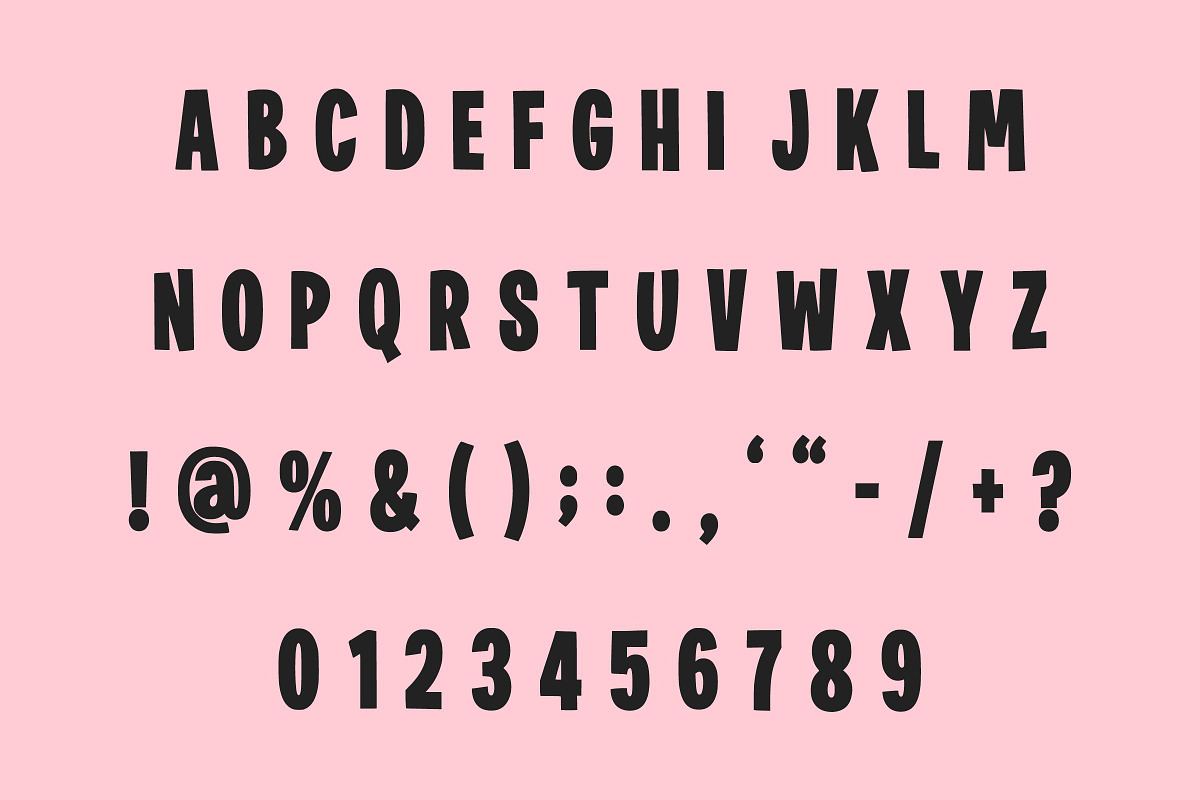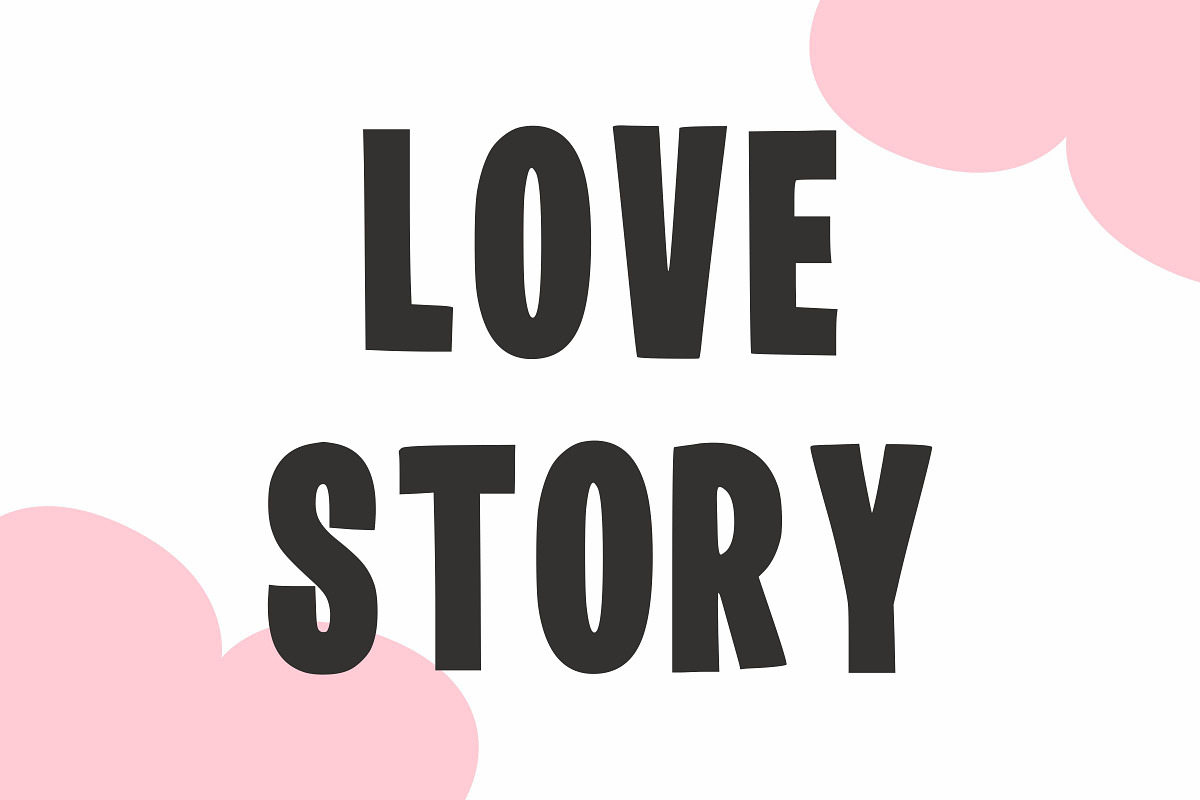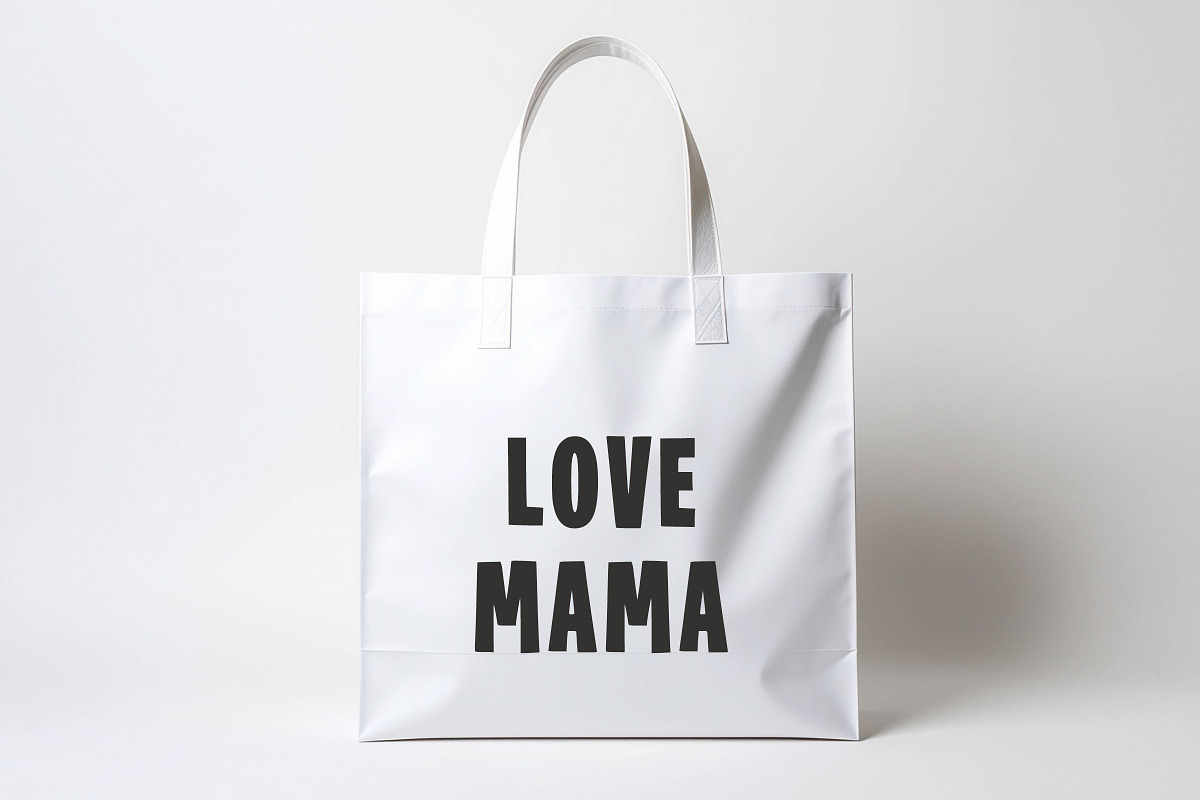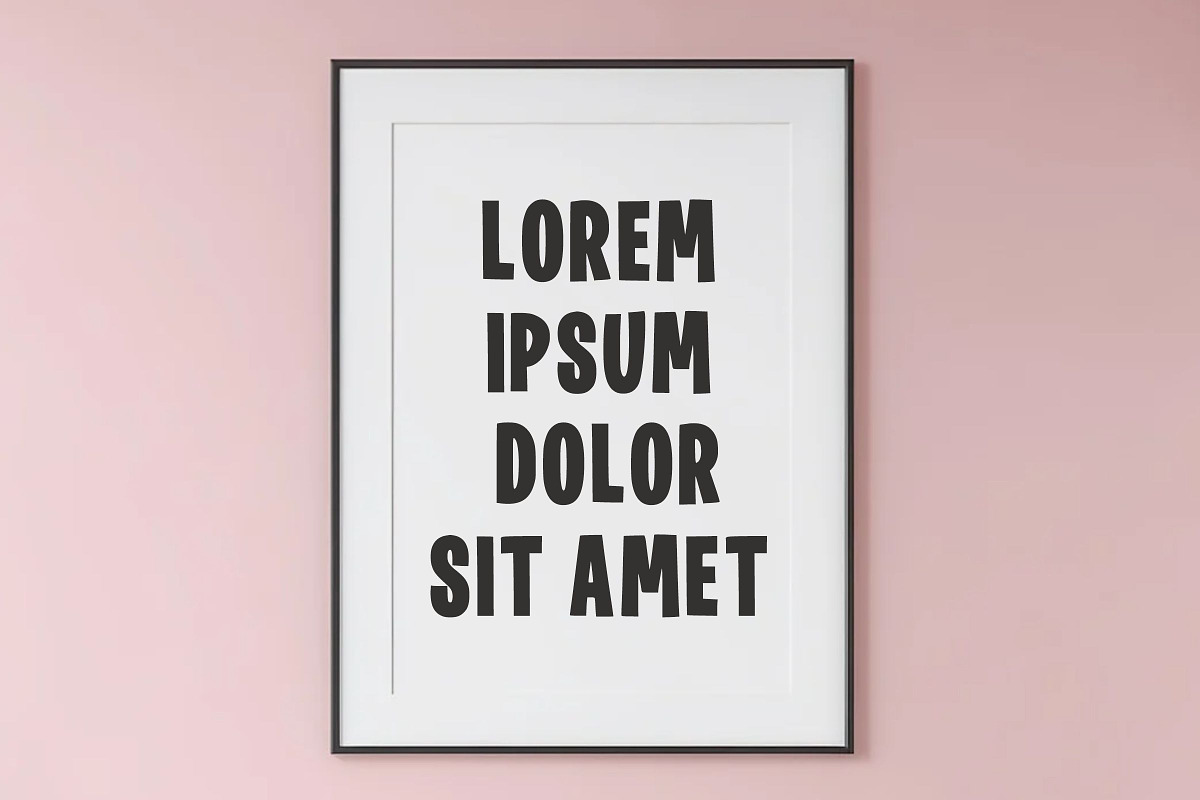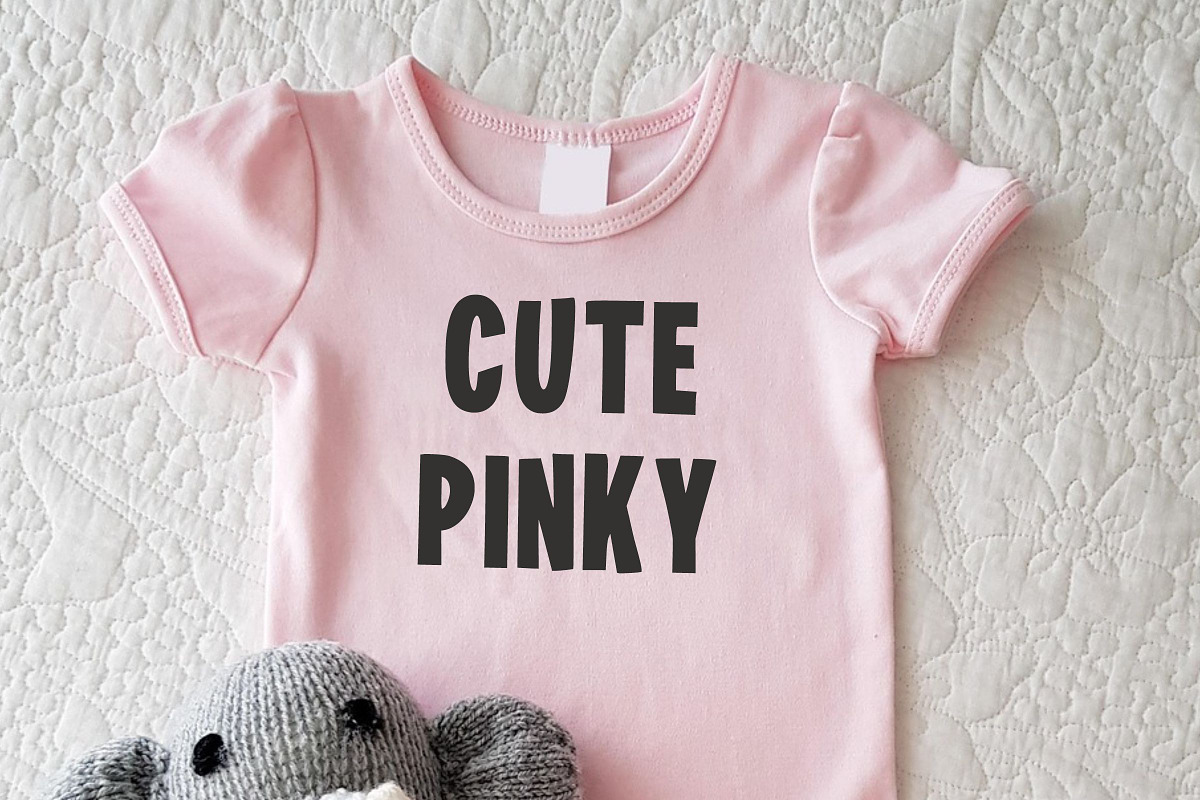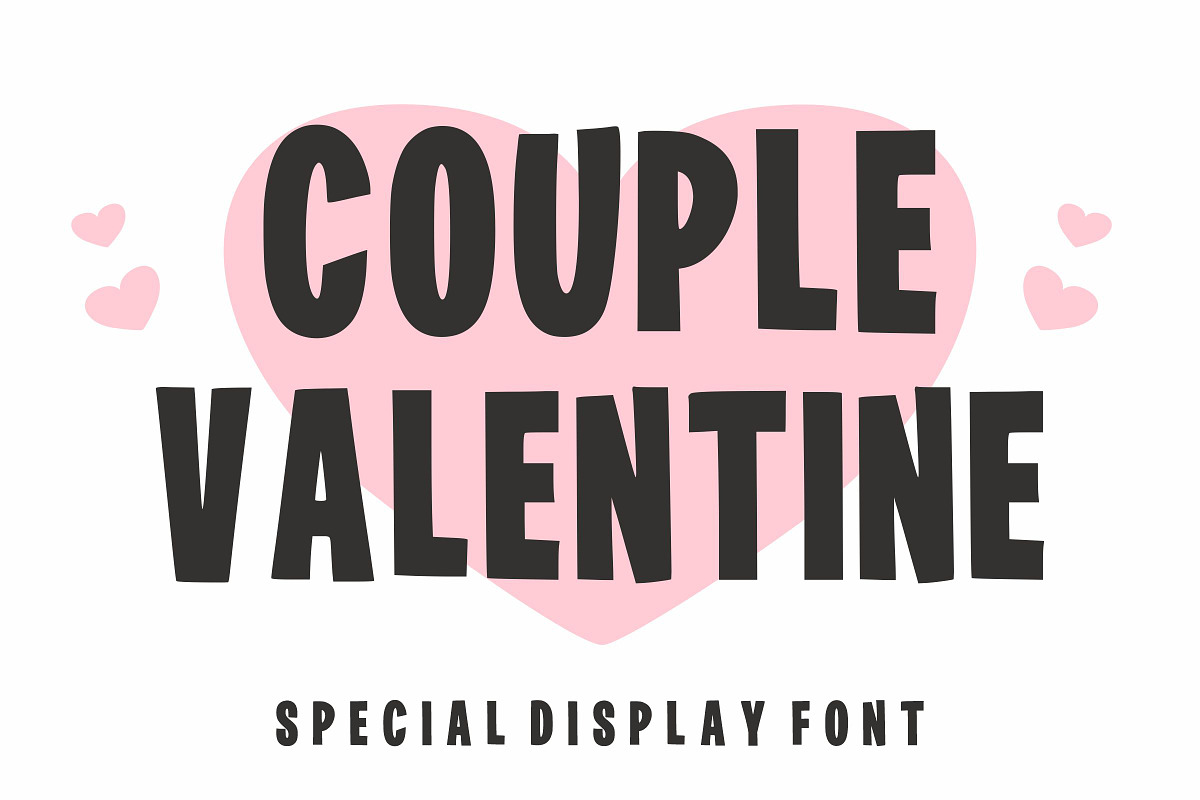
Couple Valentine
Couple Valentineis a fun and bold display font designed with a playful and friendly character. Its rounded shapes and clean lines make it perfect for love-themed designs, greeting cards, posters, branding, social media, and creative projects. This font brings a warm and cheerful feeling to every design.
🔹 Features
Uppercase letters
Lowercase letters
Easy to read
Smooth curves
Modern display style